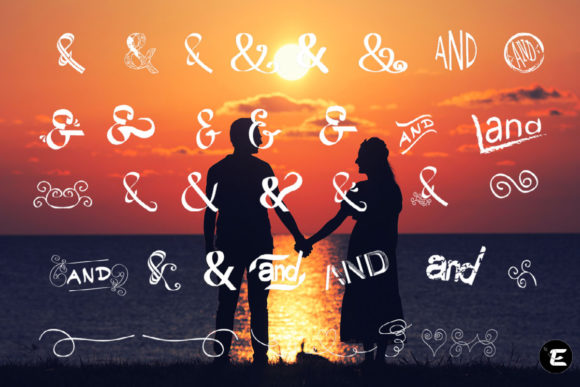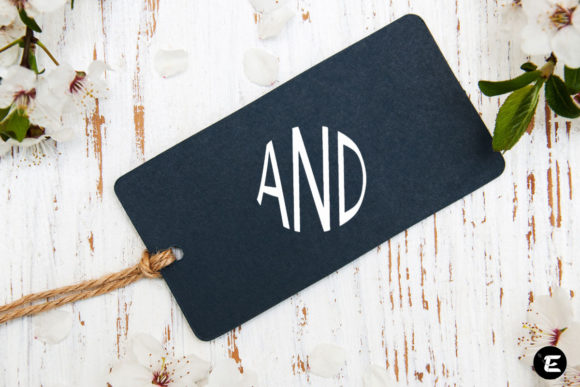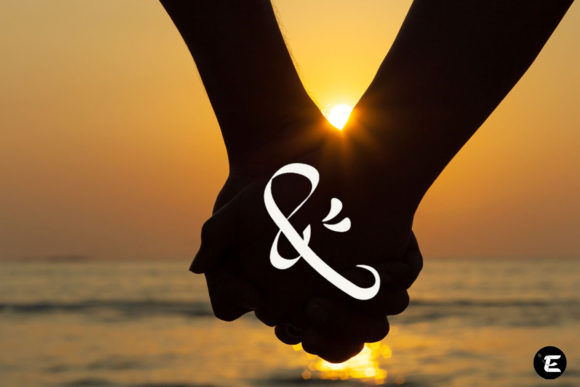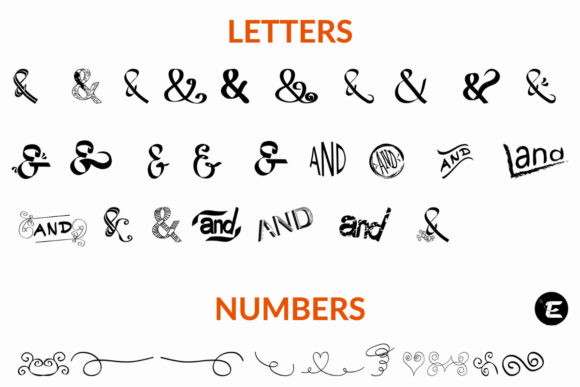
And Font
About And Font
“And” is a useful and uniquely designed dingbats font that brings a fresh and creative element to your font library. With its distinct style and versatile symbols, this font has the potential to enhance any creation, regardless of the topic or purpose.
The uniqueness of “And” lies in its carefully crafted symbols and icons, each representing a different concept or idea. Whether you’re designing a logo, creating social media graphics, crafting a presentation, or working on any other creative project, this font provides a wide range of design elements to choose from.
With “And,” you can add an extra layer of visual interest and meaning to your designs. The font’s symbols can be used to convey relationships, connections, and combinations. They can be used as bullet points, decorative elements, or as standalone graphics to highlight specific information.
The versatility of “And” allows it to adapt to various design styles and themes. Its clean lines and minimalistic approach make it suitable for both modern and classic designs. You can use it to create sleek and sophisticated visuals or to add a touch of playfulness and whimsy to your creations.
In addition to its aesthetic appeal, “And” is also user-friendly and easy to incorporate into your designs. Simply type the corresponding characters, and the unique symbols will effortlessly appear. This simplicity saves you time and effort, allowing you to focus on the creative aspects of your design without any hassle.
By adding “And” to your font library, you unlock endless possibilities for enhancing your creations. It can be a powerful tool for visual communication, allowing you to express ideas, convey messages, and captivate your audience. Whether you’re designing for print or digital media, this font will bring a fresh and unique perspective to your work.
So, embrace the versatility and uniqueness of “And” and let it become a wonderful asset in your font library. Explore its potential and unlock new creative possibilities for your designs. No matter the topic or purpose, this font will enhance your creations and make them visually captivating and engaging.